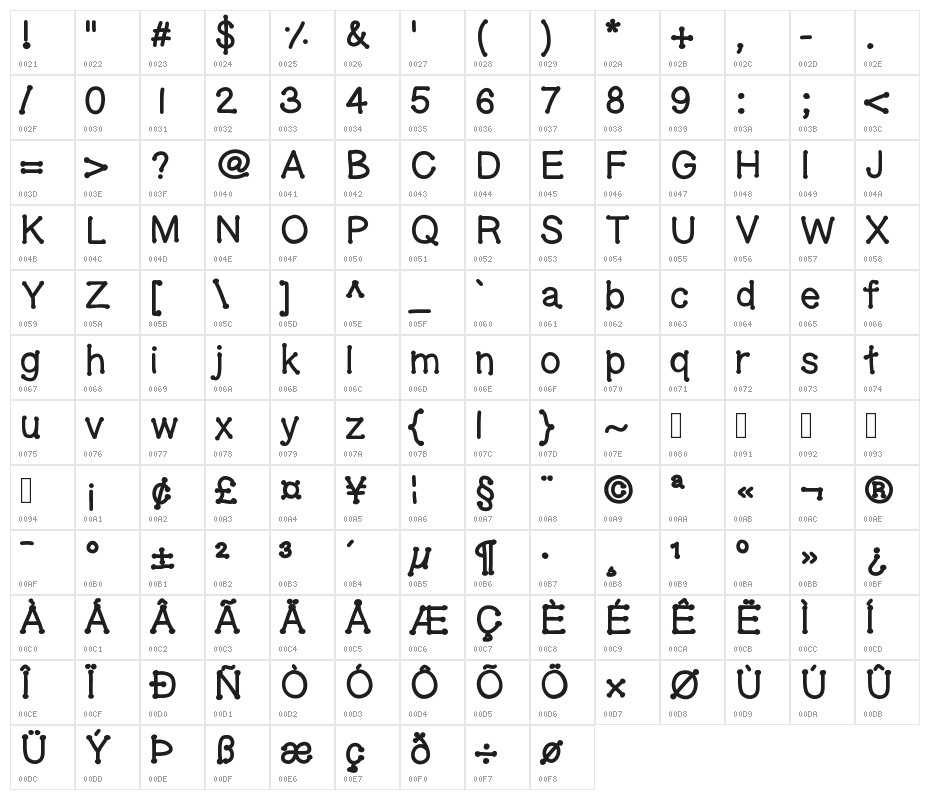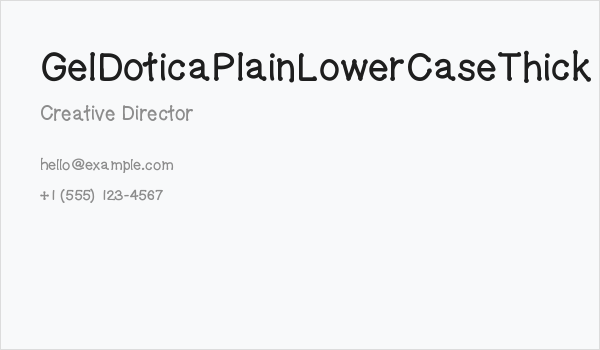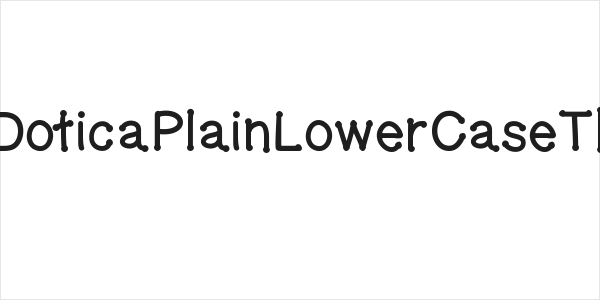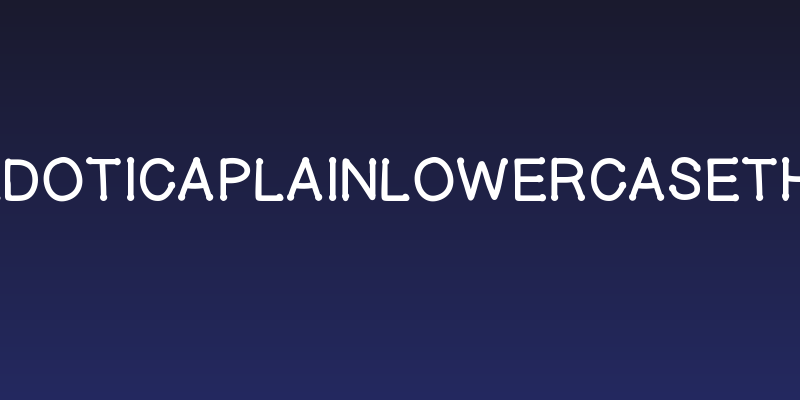
GelDoticaPlainLowerCaseThick Font
GelDoticaPlainLowerCaseThick Description
This font features a playful and rounded design, characterized by its thick, bold strokes and smooth curves. The letters are evenly spaced, providing a clean and approachable appearance. The uppercase and lowercase letters maintain a consistent style, with rounded edges that give a friendly and modern feel. The numerals and special characters follow the same design principles, ensuring uniformity across all glyphs. This font's boldness and rounded forms make it stand out, while its simplicity ensures readability.
| Proposed Projects | Ideal for children's books, playful branding, casual invitations, and educational materials. |